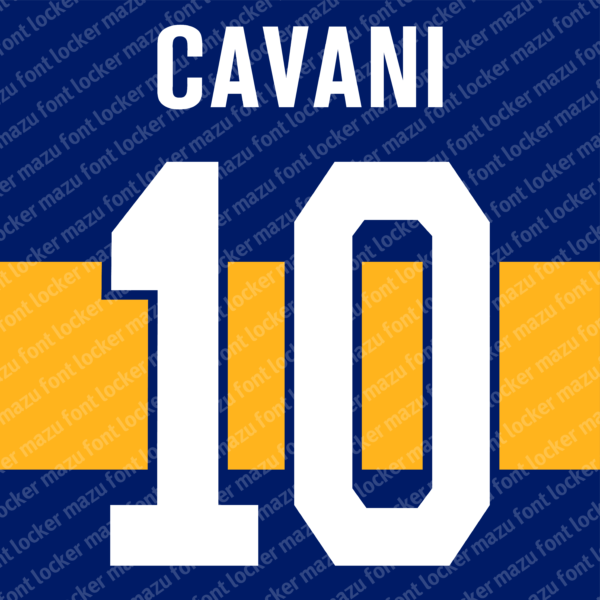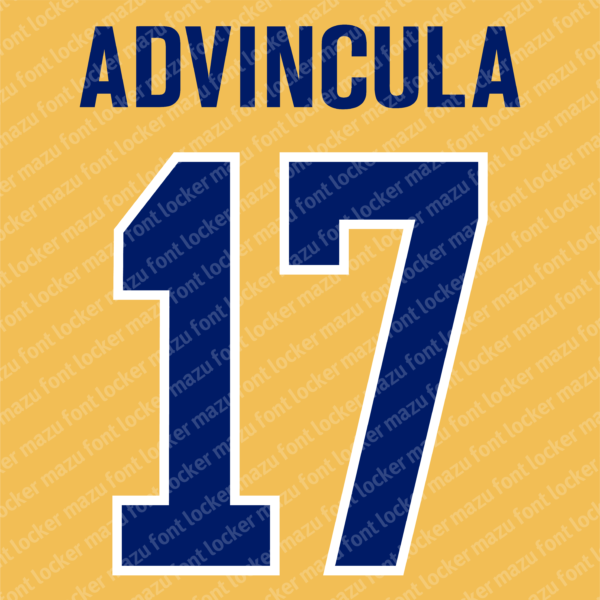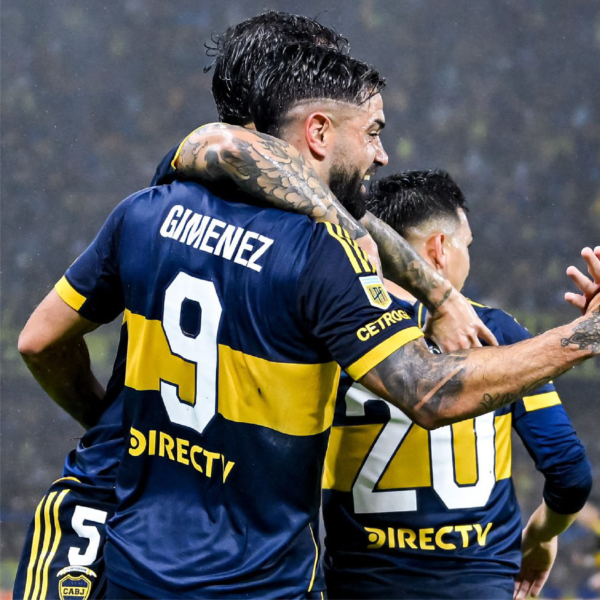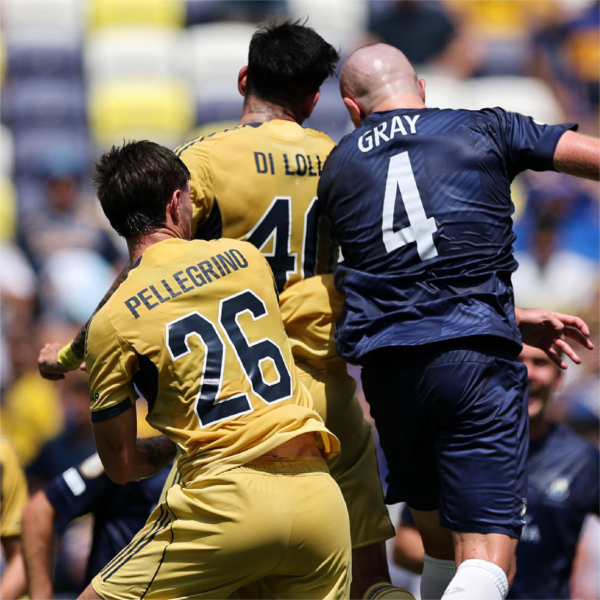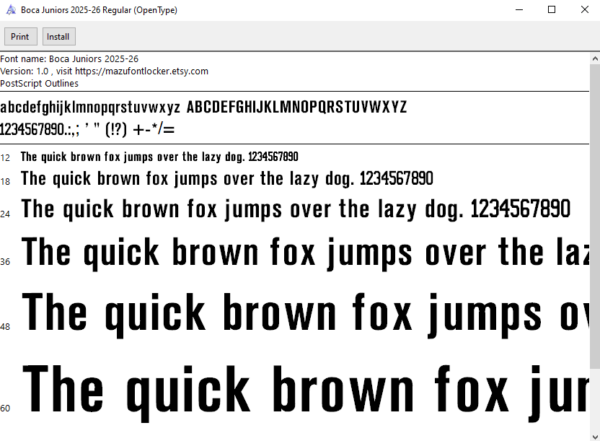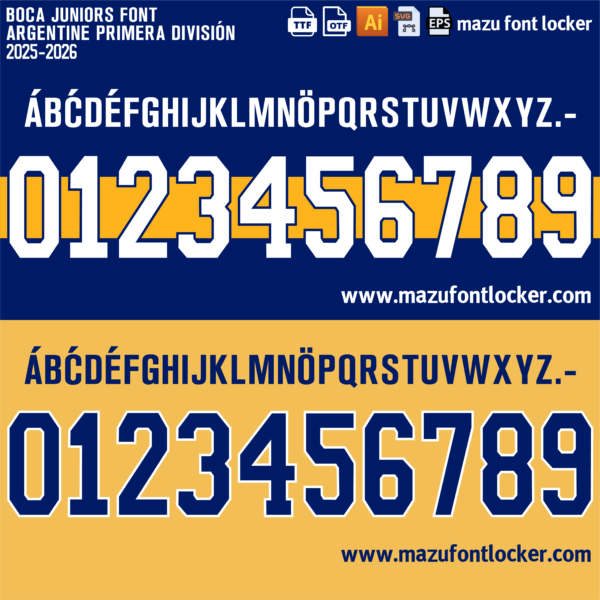
Boca Juniors 2025-2026 Font Vector – Legendary La Bombonera Power
Download the Boca Juniors 2025-2026 Font Vector (AI, EPS, SVG, PDF, OTF, TTF) and powerfully recreate the bold, thunderous, and ultra-passionate match-style lettering worn by Boca Juniors during the fiery 2025-2026 season. This font captures the intimidating and commanding typography that embodies the fierce blue-and-gold Xeneizes warrior spirit, delivering unmatched authenticity, relentless South American intensity, and iconic Bombonera dominance for premium jersey mockups and football designs.
Boca Juniors 2025-2026 Font Vector – Authentic Xeneizes Typeface
Download the Boca Juniors 2025-2026 Font Vector and powerfully recreate the bold and dynamic match-style lettering worn by the Boca Juniors squad during the 2025-2026 season. This font captures the strong, passionate, and commanding typography that embodies the fiery blue-and-gold Xeneizes spirit, delivering unmatched authenticity for premium jersey mockups and football designs.
Why Choose Boca Juniors 2025-2026 Font
This font stands out because of its sharp details and legendary club identity. Every letter and number is crafted to match the exact style used on the players’ shirts during the 2025-2026 campaign. Whether you are making realistic modern jersey templates or high-energy football content, the Boca Juniors 2025-2026 Font gives your designs that authentic Xeneizes passion.
The letterforms in the Boca Juniors 2025-2026 Font are tall, bold, and highly impactful. The strokes have a strong and aggressive weight that looks powerful on the back of jerseys while maintaining excellent clarity and presence.
The numerals use bold curves and firm edges, giving them a confident and premium appearance. This design ensures great legibility whether used in large print formats, digital mockups, or video content.
• Full uppercase A–Z and numbers 0–9 in authentic Boca Juniors 2025-2026 style
• Special Boca Juniors crest glyph for accurate shirt number detailing